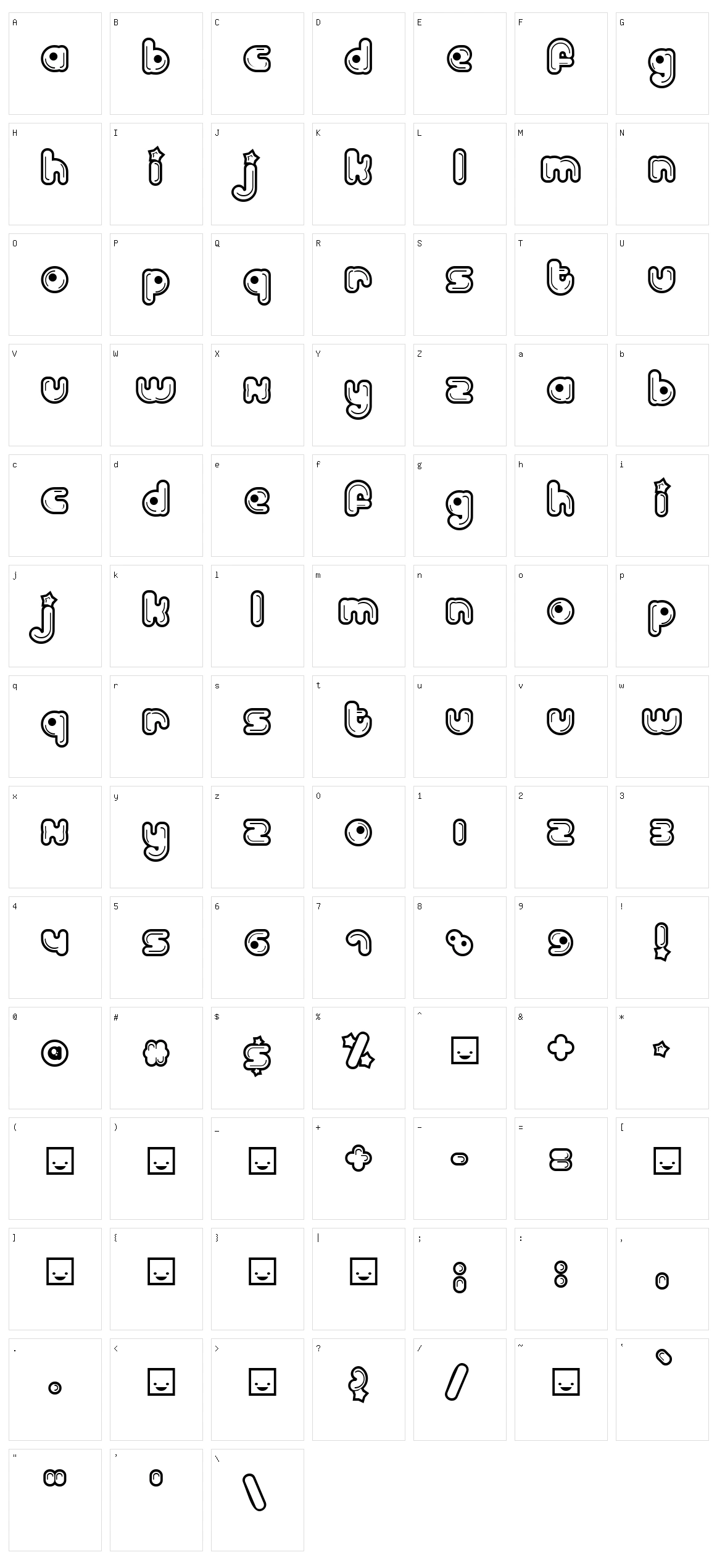
The free font Billo Dream is carefully designed by Fontalicious, showcasing a thoughtful balance of creativity and usability and falls under the Groovy font style. When you download the ZIP file, it contains only 58.81 KB of font files, making it lightweight and quick to download. Please review the license details below to understand permitted usage and distribution rights. If license information is not available, we recommend using this font for personal projects only or contacting the author directly for commercial usage permissions.